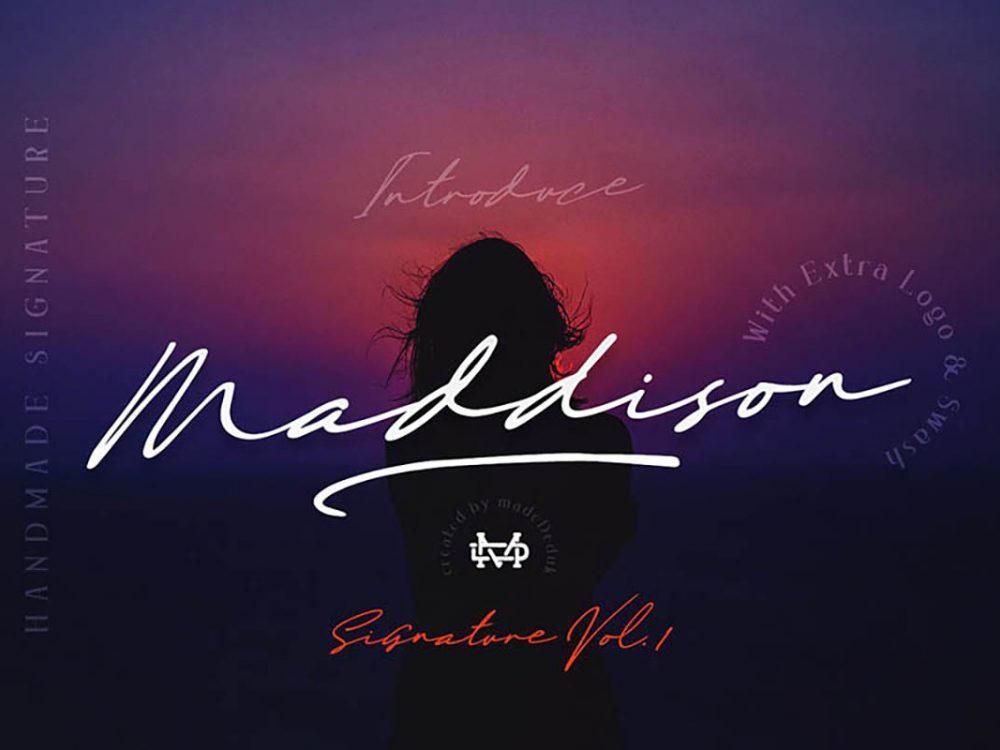
Maddison Free Font
Maddison Free Font is a beautiful handwritten font with an elegant outline that will help you create a variety of memorable design projects. use this font to create posters, cards, invitations, flyers, prints, and more. If you wish to access more features and use them for commercial work please buy the full version.